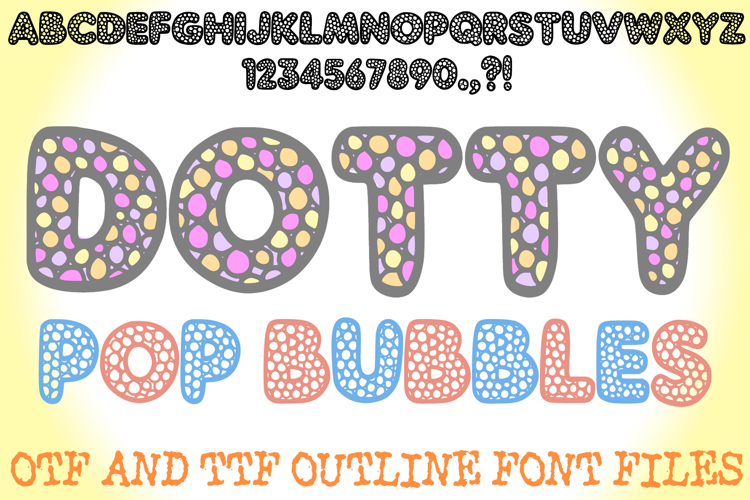
Dotty Pop Bubbles Cartoon Alphabet Lettering ABC Text Font
Get ready to make your projects pop with the Dotty Pop Bubble Font! This is a unique and playful display font that takes the classic, friendly bubble letter shape and fills it with an intricate, engaging dot pattern. The result is a highly decorative typeface that is bold, legible, and visually fascinating.
This font is perfect for any designer or crafter looking for a bold texture. Its clear outline and distinct internal pattern make it an excellent choice for coloring pages, activity books, apparel design, logo creation, or unique event posters. The dot pattern is great for adding dimension to projects created with vinyl cutting machines like Cricut and Silhouette.
Use the Dotty Pop Bubble Font to add a touch of playful complexity to your headers and branding.